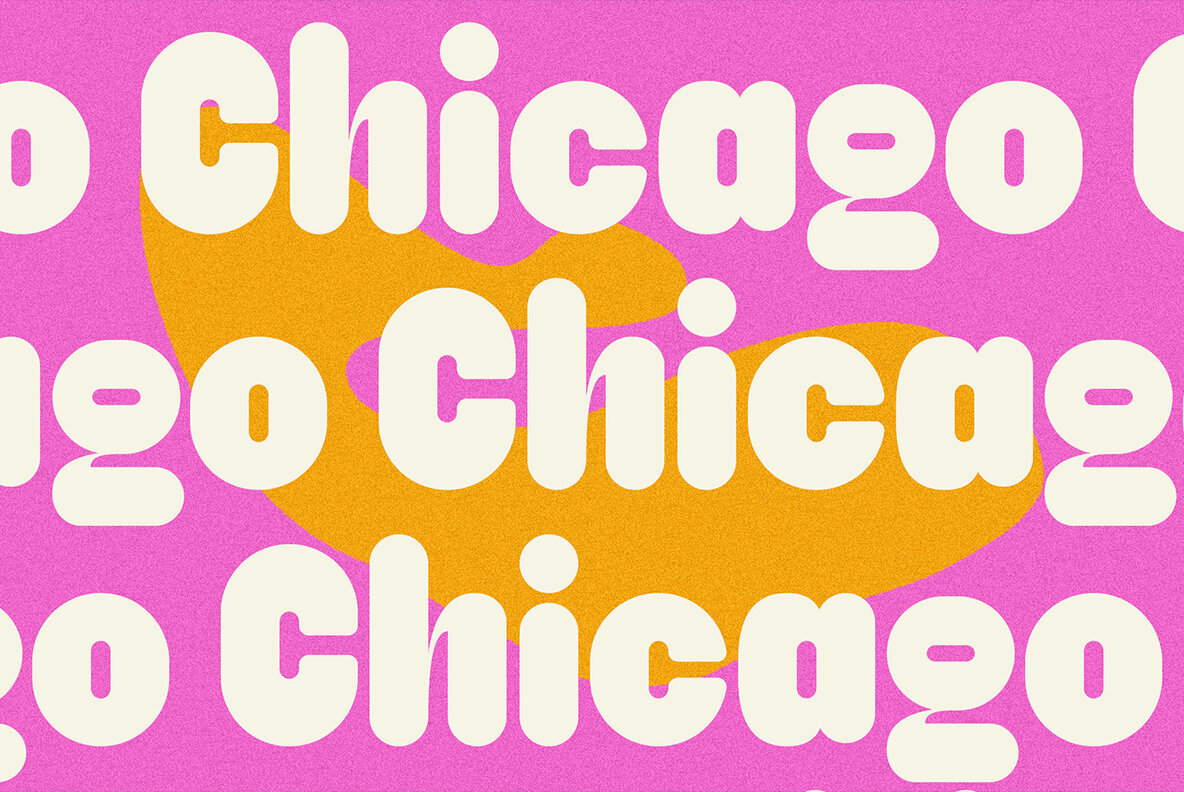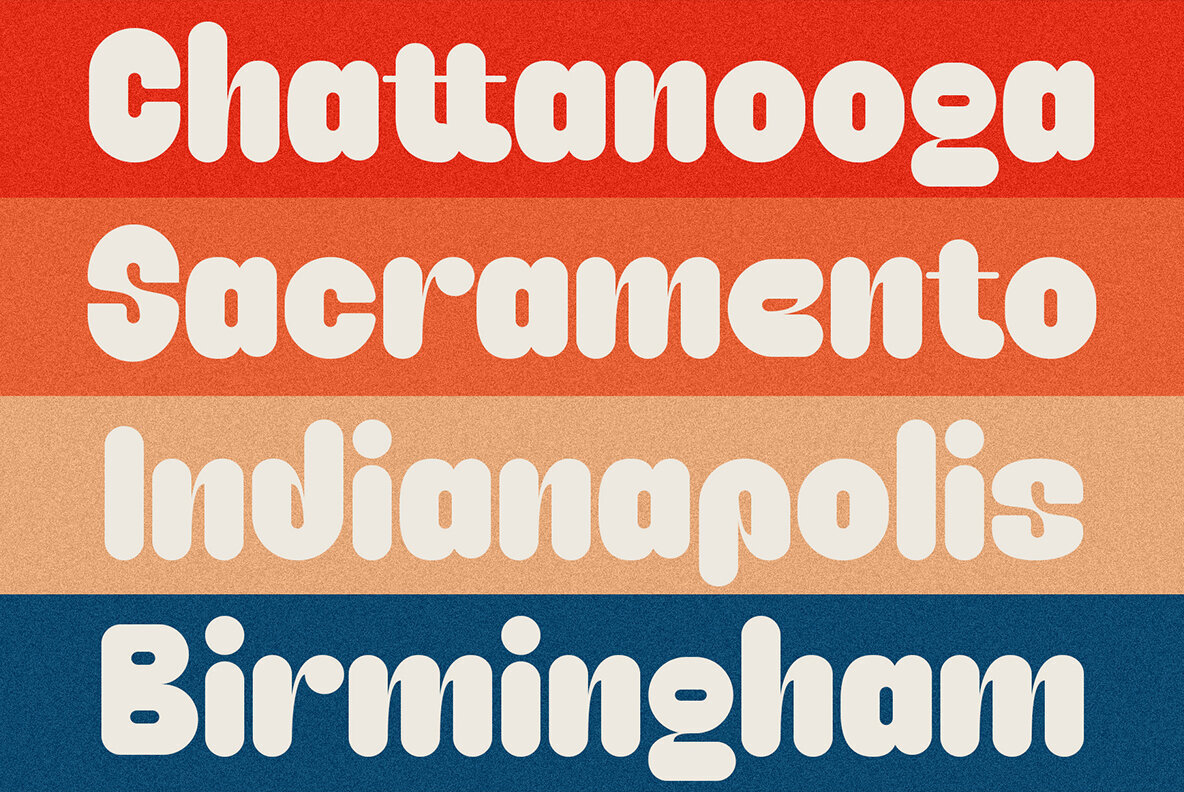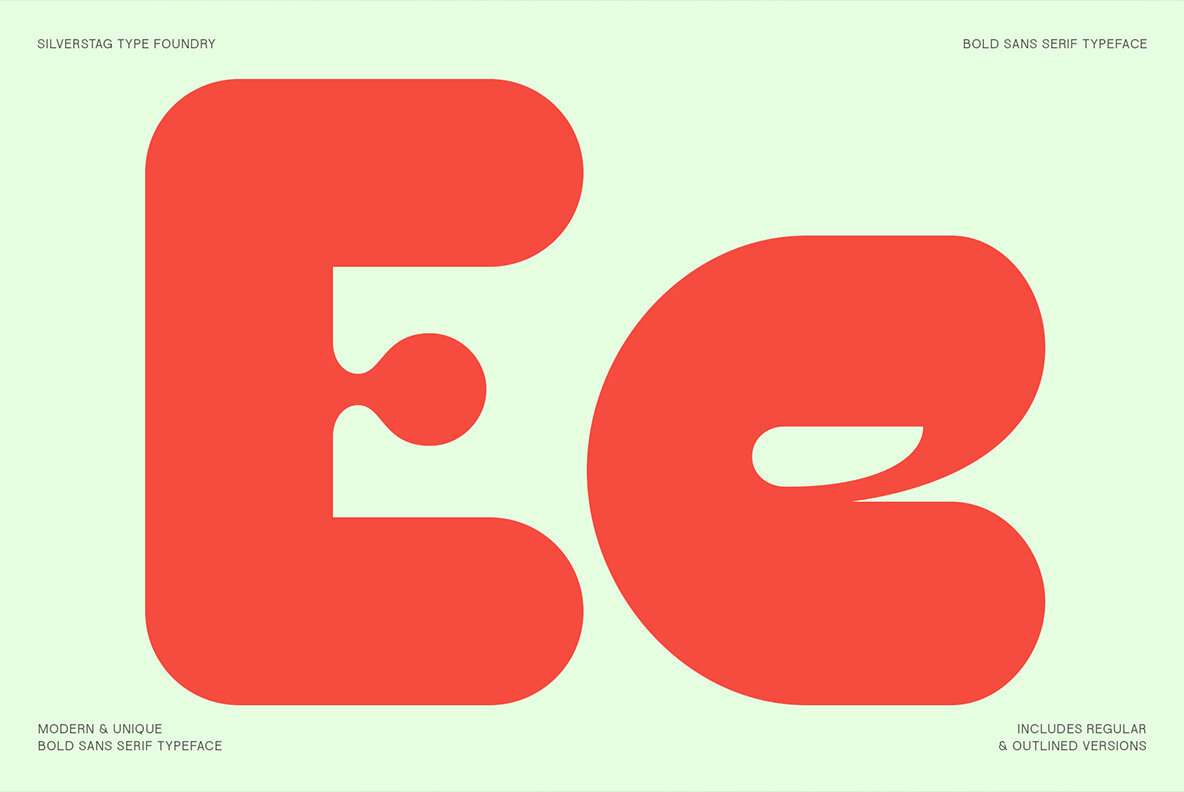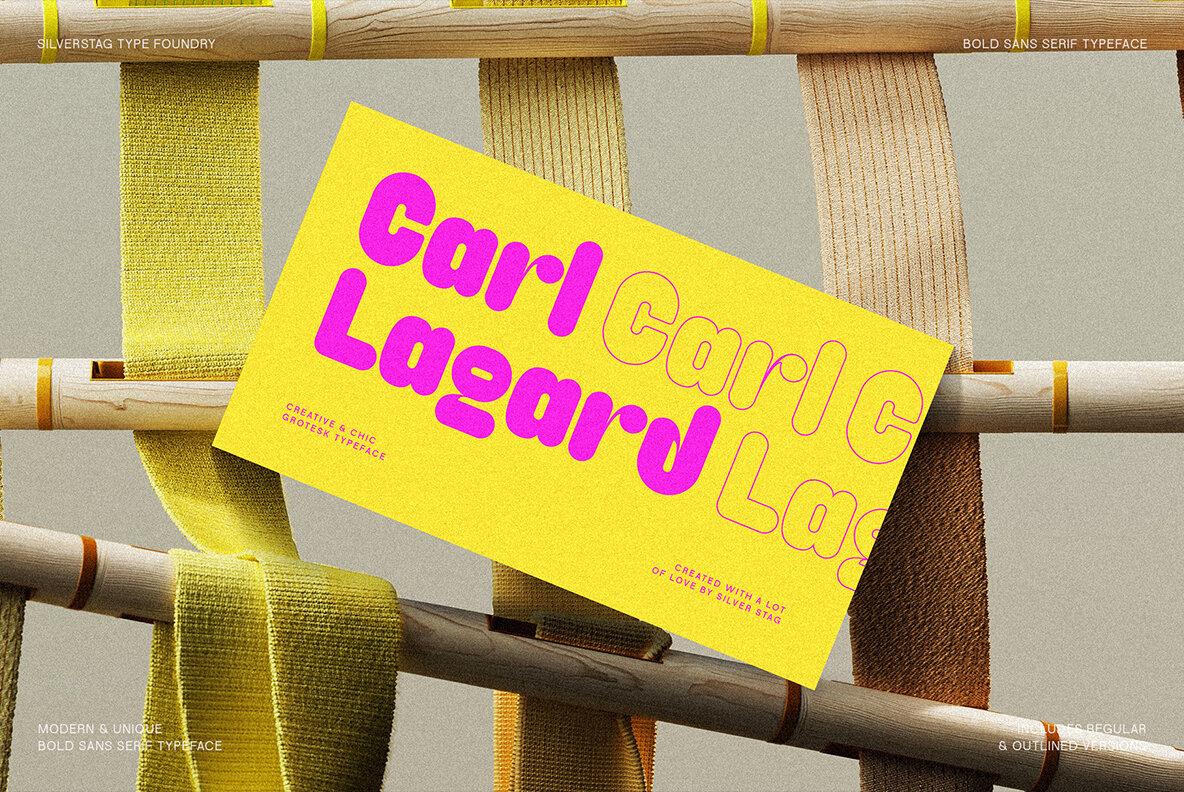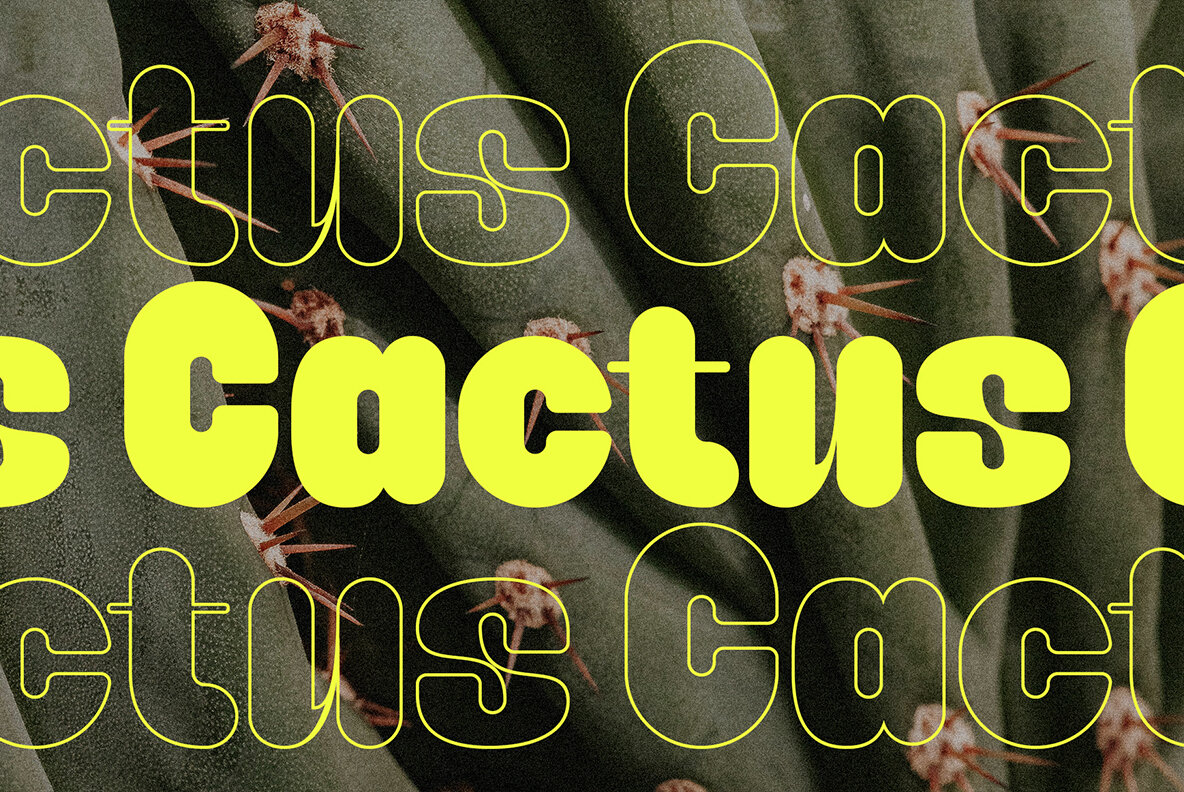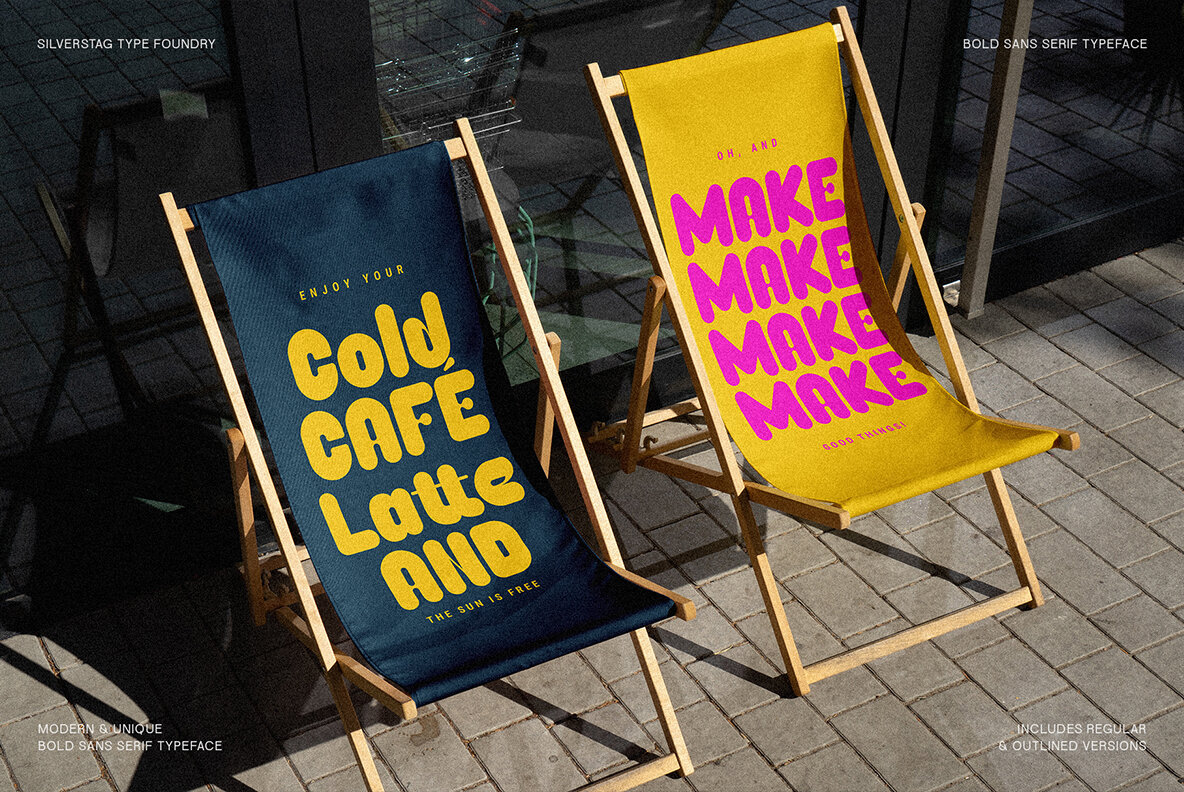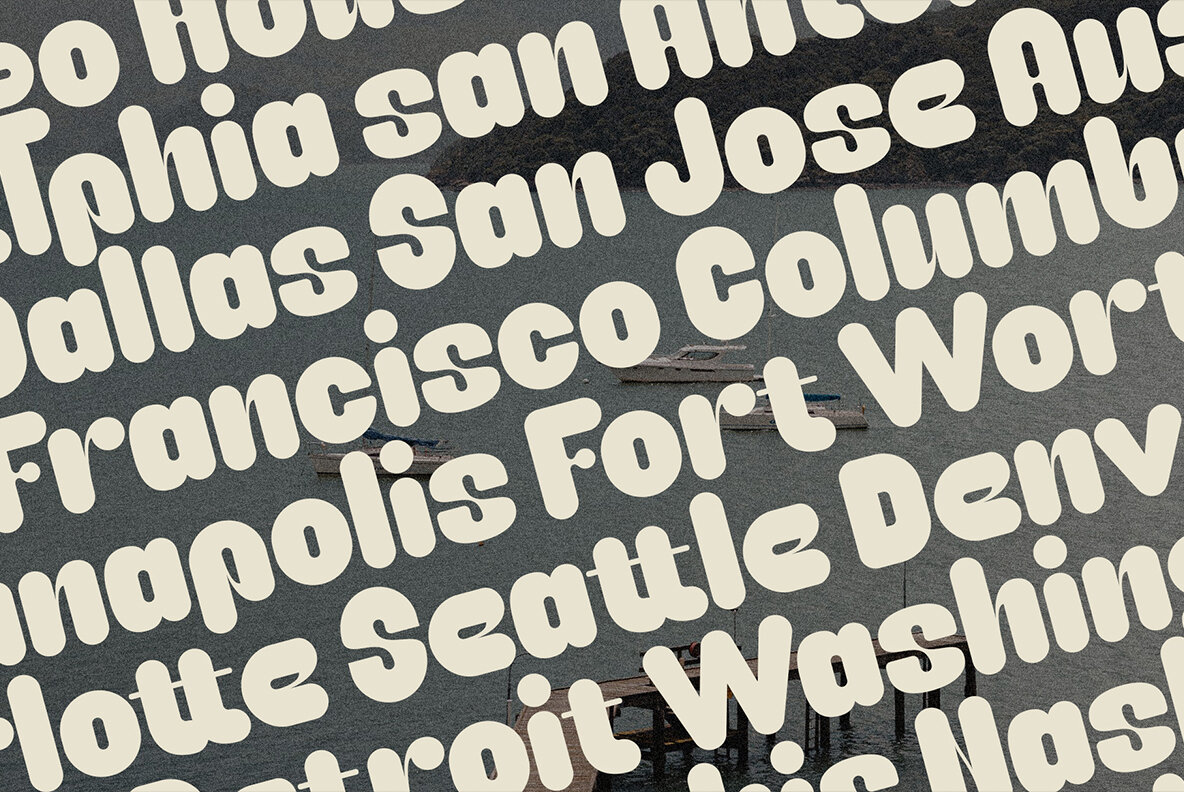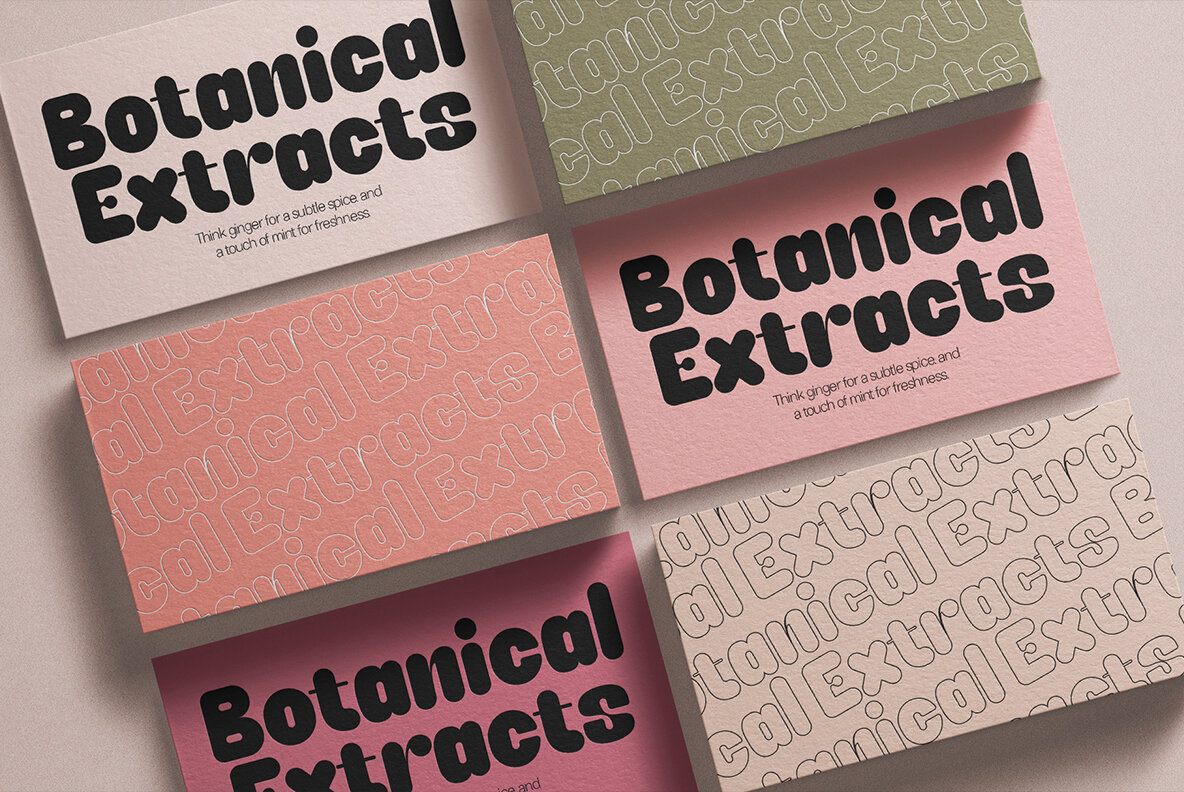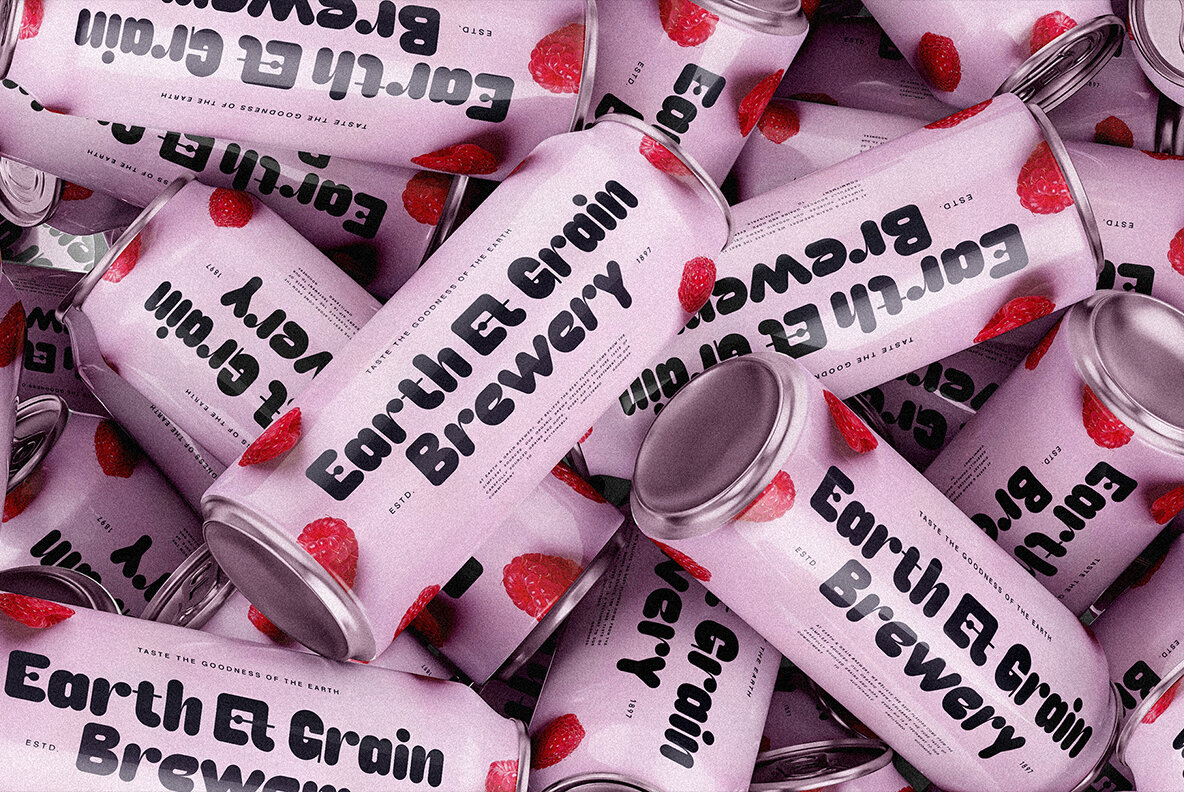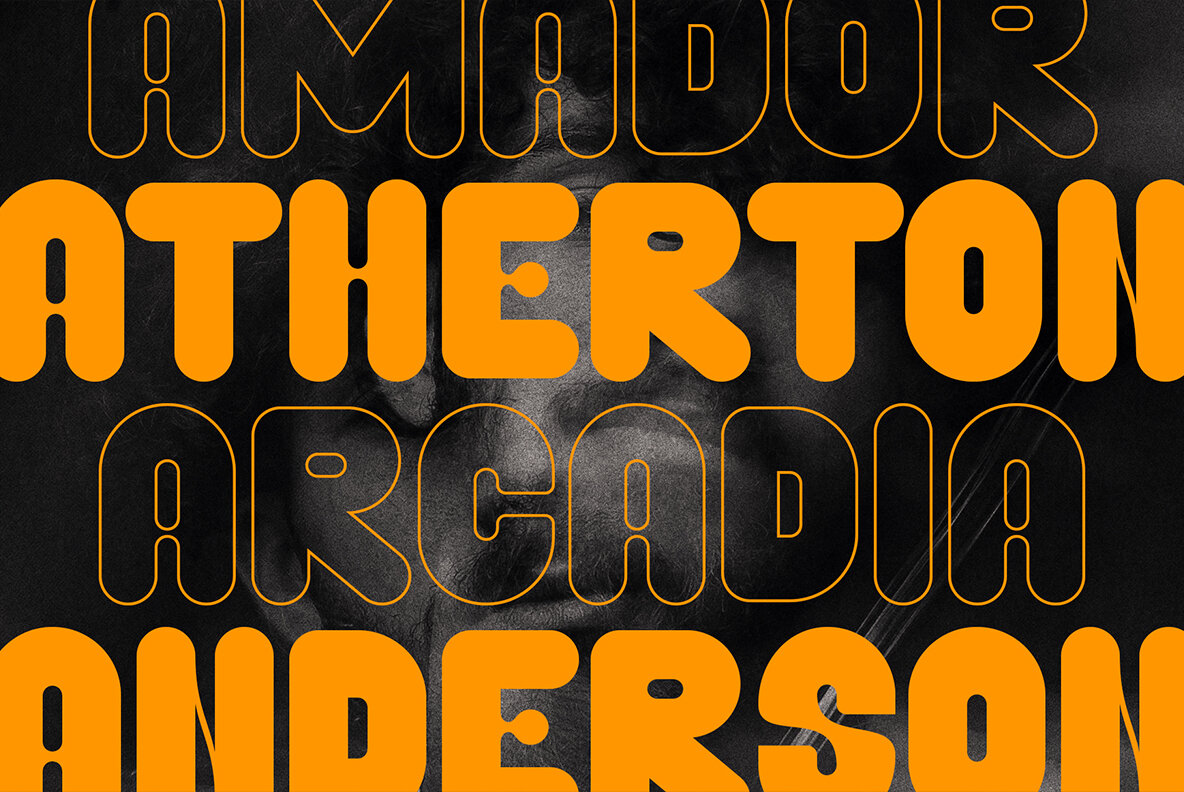
Caprifig Font
Caprifig Regular
Caprifig Regular Outline
Say hello to Caprifig, a font that's as unique as your ideas. This modern, rounded sans-serif typeface is perfect for those who dare to be different. Its bold personality and playful curves create a visually captivating experience that's impossible to ignore. Imagine Caprifig as the life of the party, the one who always has a smile on their face and a story to tell. Caprifig is not your average font. It's a statement piece, a conversation starter, a burst of sunshine on a cloudy day. It's the perfect choice for brands that want to stand out from the crowd and make a lasting impression. Whether you're designing a website, creating a poster, or branding a product, Caprifig is sure to add a touch of personality and charm to your work. This font comes in two distinct flavors: regular and outlined. The regular version is a solid, chunky delight, perfect for adding a touch of boldness to your designs. The outlined version, on the other hand, is lighter and airier, offering a more playful and delicate touch. Both versions are designed to inject your projects with a sense of fun and creativity. With over 90 language support options and essential ligatures, Caprifig is a font that works as hard as it plays. Whether you're designing a headline, crafting a logo, or creating eye-catching social media graphics, Caprifig is sure to bring your vision to life. It's the perfect choice for brands that want to stand out from the crowd and make a lasting impression. It's time to unleash your creativity and let Caprifig take your designs to the next level.